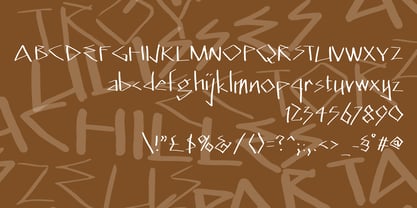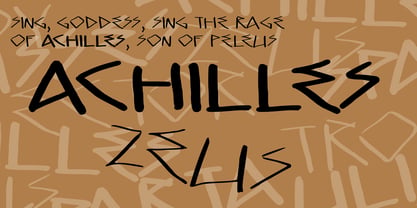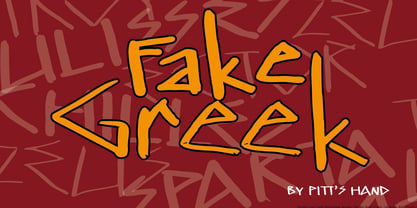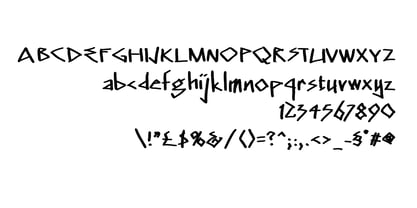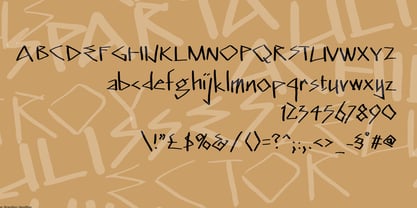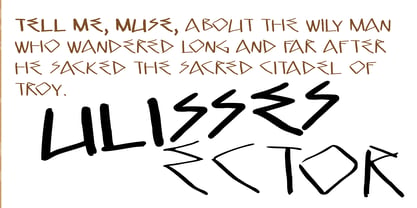
Fake Greek
by Pitt's Hand
The Fake Greek Font Family was designed by Pietro Rotelli and published by Pitt's Hand. Fake Greek contains 3 styles and family package options. More about this family
Fake Greek is a bold Ancient Greek–inspired display typeface designed for impact, drama, and timeless visual storytelling. Rooted in classical epigraphy and monumental stone carvings, this typeface captures the architectural strength of ancient inscriptions while remaining highly usable for contemporary design. Its sharp geometric cuts, sculptural serifs, and balanced proportions evoke temple friezes, amphitheater engravings, and heroic mythological narratives — yet with modern spacing and refined kerning for today’s layouts. Designed specifically for posters, signage, branding, packaging, advertising, entertainment graphics, and editorial headlines, Fake Greek brings mythic authority and theatrical flair to any composition. Whether you're designing for a historical exhibition, a fantasy brand, a theatrical production, a Mediterranean restaurant, a game title, or a bold promotional campaign, this font delivers: Monumental presence Classical elegance Graphic clarity at large scale Strong silhouette recognition Authentic ancient flavor without sacrificing readability Perfect for: Posters • Billboards • Logos • Packaging • Event graphics • Cultural projects • Advertising campaigns • Theatrical productions • Mythology-inspired branding • Fantasy media Available in: Regular • Bold • Medium Includes: Uppercase • Lowercase • Numerals • Punctuation • Basic Latin • Extended Latin • Alternates inspired by classical Greek letterforms. Bring the spirit of marble, myth, and Mediterranean sun into your typography.
Designers: Pietro Rotelli
Foundry: Pitt's Hand